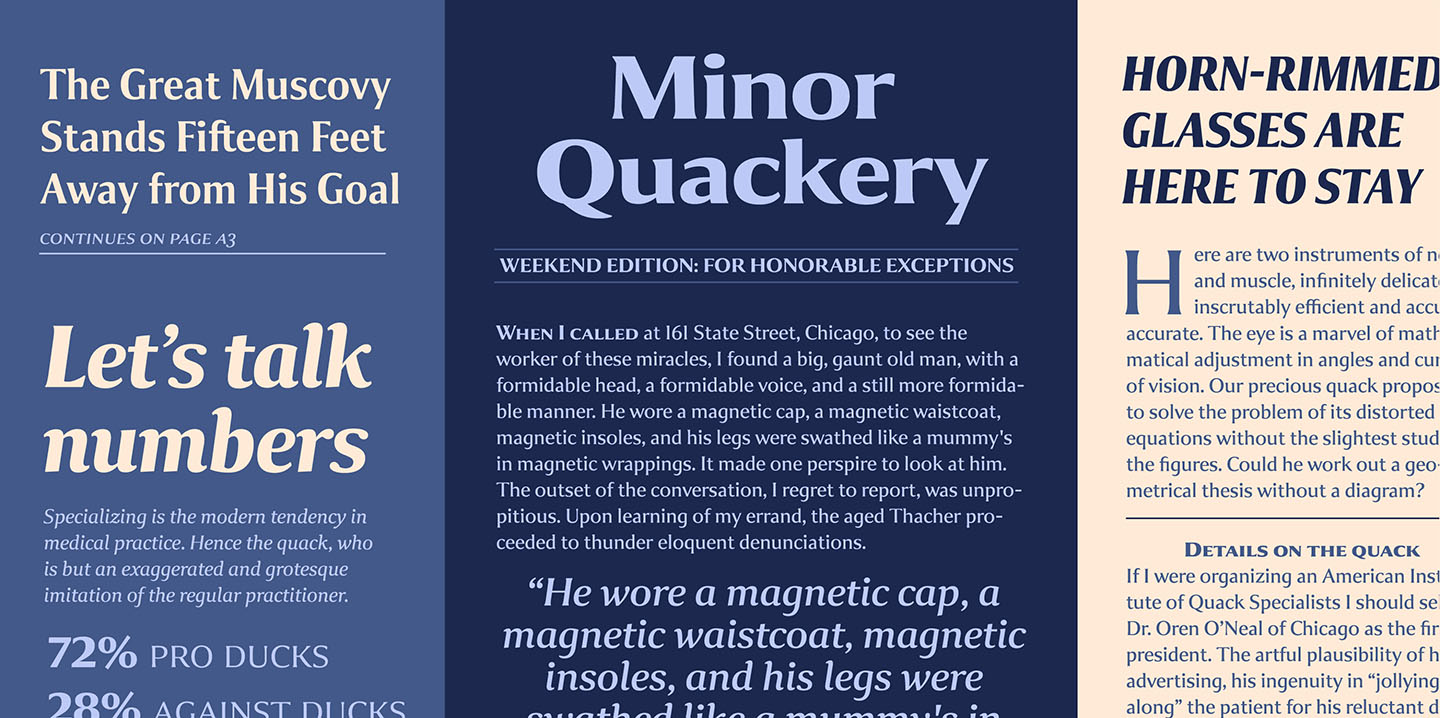
Collier Font
Collier Font is perfect for jewelry branding, luxury fashion labels, elegant boutique logos, premium accessory packaging, sophisticated beauty products, upscale retail communications, refined lifestyle marketing, exclusive event invitations, high-end craftsmanship branding, and distinguished artisan materials.
What makes Collier Font so exciting is its precious elegance that captures the refined beauty and meticulous craftsmanship of fine jewelry while maintaining contemporary sophistication and professional appeal. This exquisite typeface embodies luxury craftsmanship and precious quality, creating typography that communicates exclusivity, refinement, and the timeless appeal of artisanal excellence.
The Collier Font family includes light, regular, medium, and bold weights, complete with elegant design features, precious styling elements, and refined characteristics that provide designers with comprehensive tools for creating sophisticated and memorable typography that celebrates the artistry of fine craftsmanship and luxury design.
The precisely crafted letterforms of Collier Font showcase precious elegance with refined character that creates instant recognition of luxury quality and artisanal excellence. Each character displays meticulous attention to maintaining the precious sophistication that defines fine craftsmanship while ensuring contemporary readability and professional versatility. The font's elegant construction and refined spacing contribute to its precious appearance and luxury appeal.
Luxury brands and high-end artisans consistently choose Collier Font for projects requiring precious authenticity and refined sophistication. The comprehensive character set includes uppercase and lowercase letters, numerals, extensive punctuation, international accents, and elegant decorative elements that provide complete support for luxury branding applications and precious design compositions.
The timeless elegance of Collier Font ensures exceptional performance across both traditional print and modern digital platforms. Whether developing luxury brand identities, creating precious marketing materials, or designing sophisticated retail communications, this remarkable typeface delivers consistent refinement that resonates with audiences seeking exclusive quality and artisanal excellence.